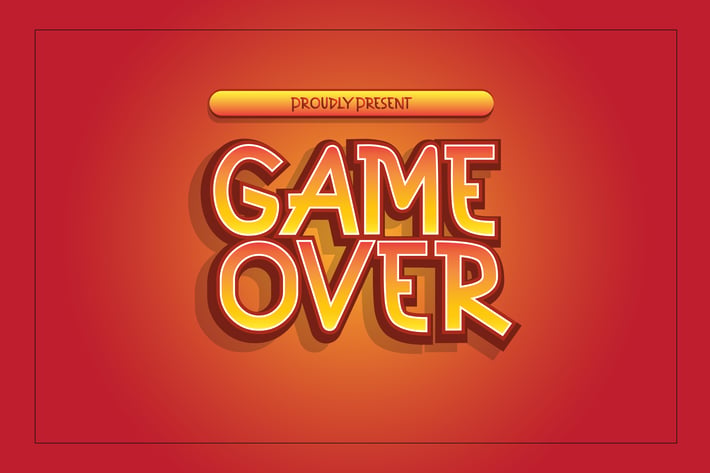
CUBE - Gaming Display Font
Cube Gaming Font is a Modern Sans Serif Font Suitable for any graphic designs such as branding materials, t-shirt, print, business cards, logo, poster, t-shirt, photography, quotes, coffee shop, etc.